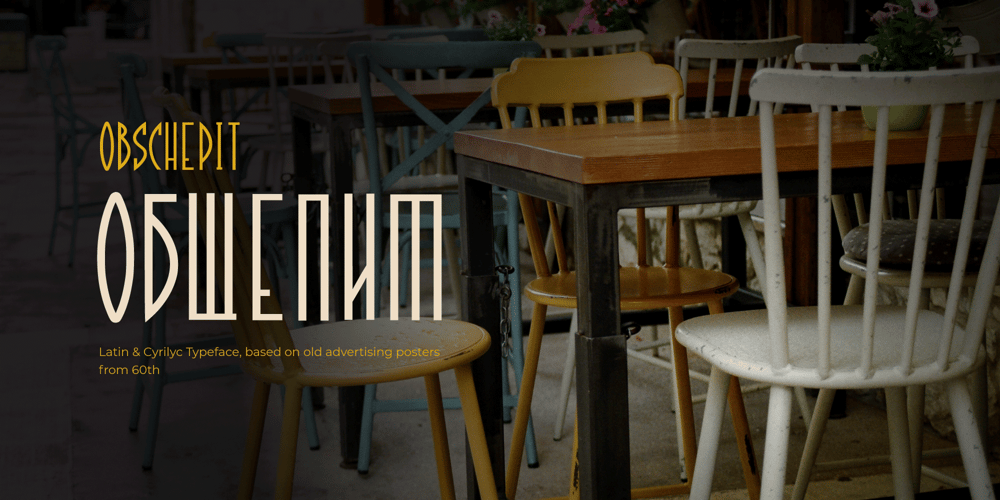
Obschepit Font Family was designed by Dmitriy Zaporozhan and published by Zaporozhan Dmitriy. Obschepit contains 1 styles and family package options. When did it start.One day I was designing some stuff for a fast food café. By style the Café was made as an old Soviet canteen. So I had to do a special accent on this in menu, advertising posters and other print products. I decided to do this by interesting old school font. There are many cool retro fonts on the Internet, but not one of them satisfied me on 100%. The next step was to look at the old posters and find some inspiration. So I found some cool pictures with exact letters that I needed, but there were no typefaces to buy so that I can print some text with this exact letters.That’s why I decided to do such typeface for my own.You can use this typeface in the field of nutrition, and it also will suit for cinema posters.